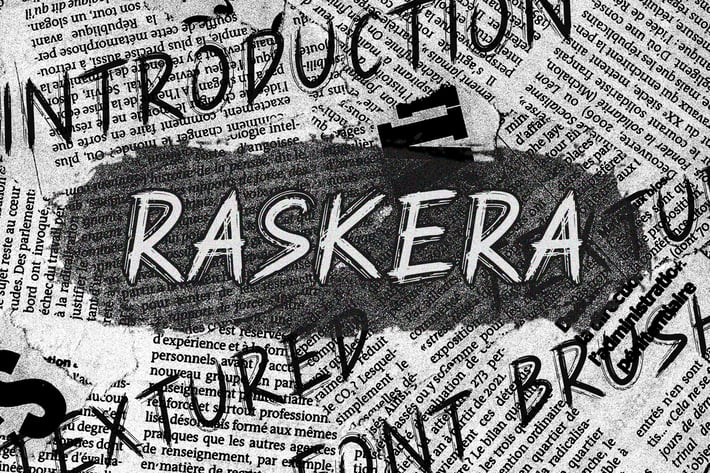
RASKERA - Hand Brush Font
RASKERA a unique display typeface perfect for titles, large text, branding, logotypes & graphic design purposes such as posters, pamphlets, and advertisements. This letter font can be a great choice for creating amazing logos, promotional content, and marketing presentations that can bring uniqueness and freshness at its best.
Uppercase and Lowercase letters
Numbering and Punctuations